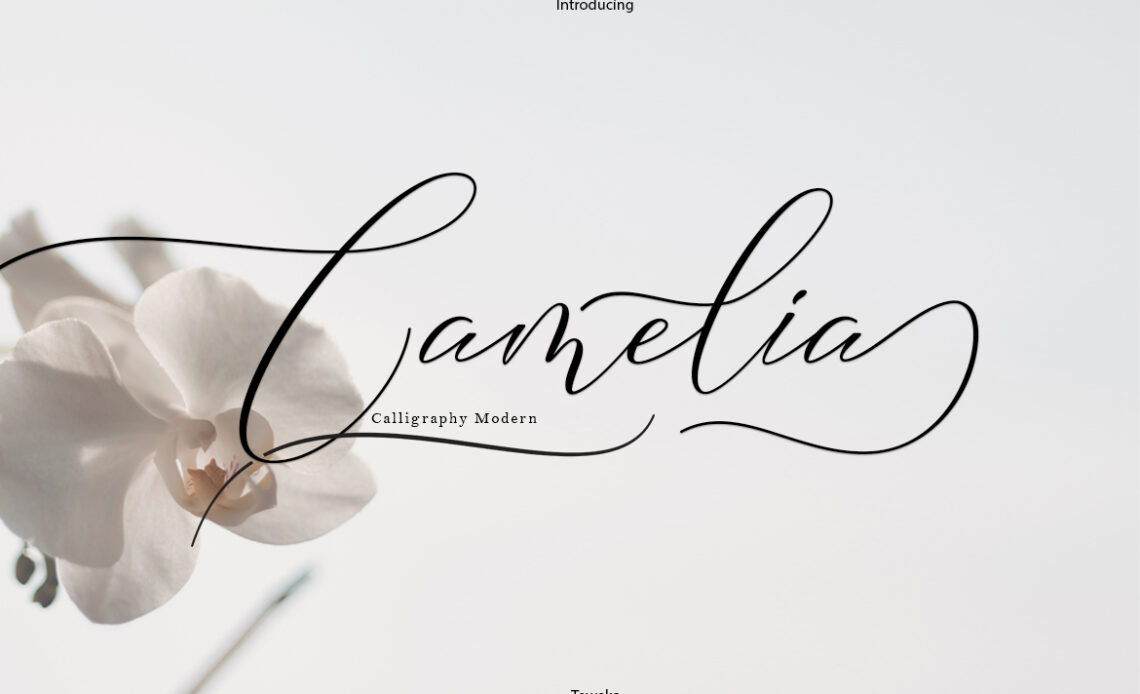
Immerse yourself in the world of elegance and grace with Camelia Font, the epitome of beauty and charm. Designed by Teweka, this script font boasts 471 unique glyphs and characters, allowing you to explore a vast universe of creative possibilities.
Camelia Font is not merely a font; it's an invitation to embark on a journey of artistic expression. Its flowing curves and delicate strokes will captivate your audience, leaving them spellbound by your words. Perfect for wedding invitations, love letters, or any project that calls for a touch of romance, Camelia Font will add a dash of allure to your designs.
With Camelia Font, you'll never have to worry about legibility. Its meticulously crafted characters ensure that your message shines through, leaving a lasting impression on your readers. Whether you're a seasoned designer or just starting your creative journey, Camelia Font will elevate your projects to new heights of sophistication.
Unlock the power of Camelia Font today and let your words dance with grace. Indecipherable letters, smudged ink, and illegible words will become a thing of the past. Experience the joy of effortless communication as your words flow freely, delighting the eyes of your audience.